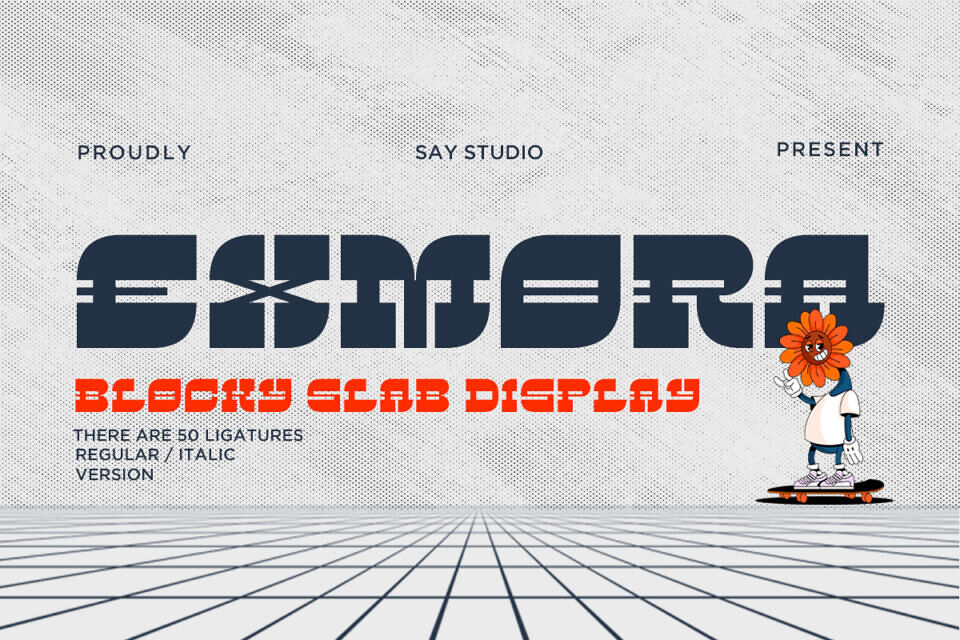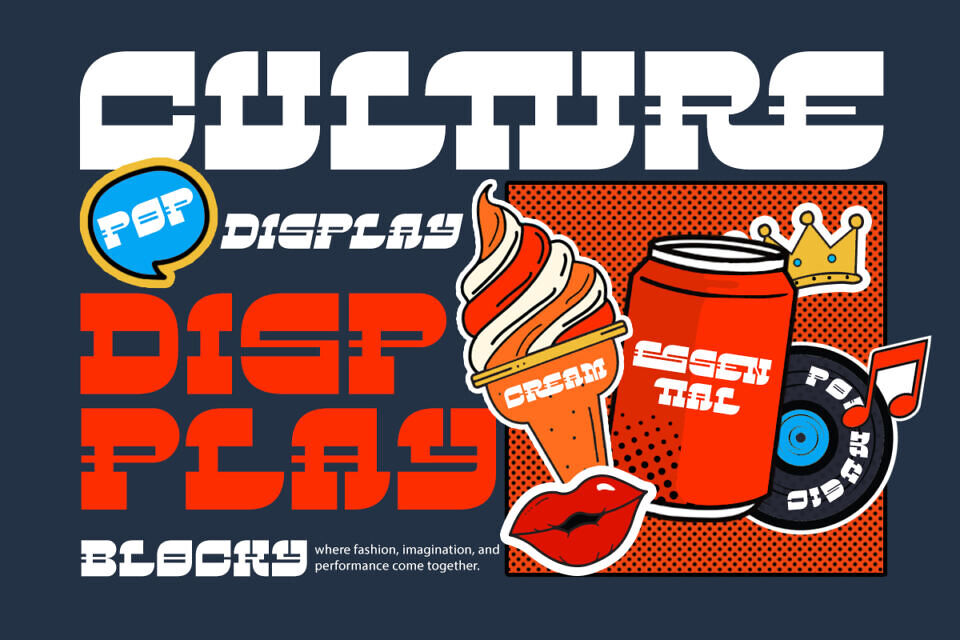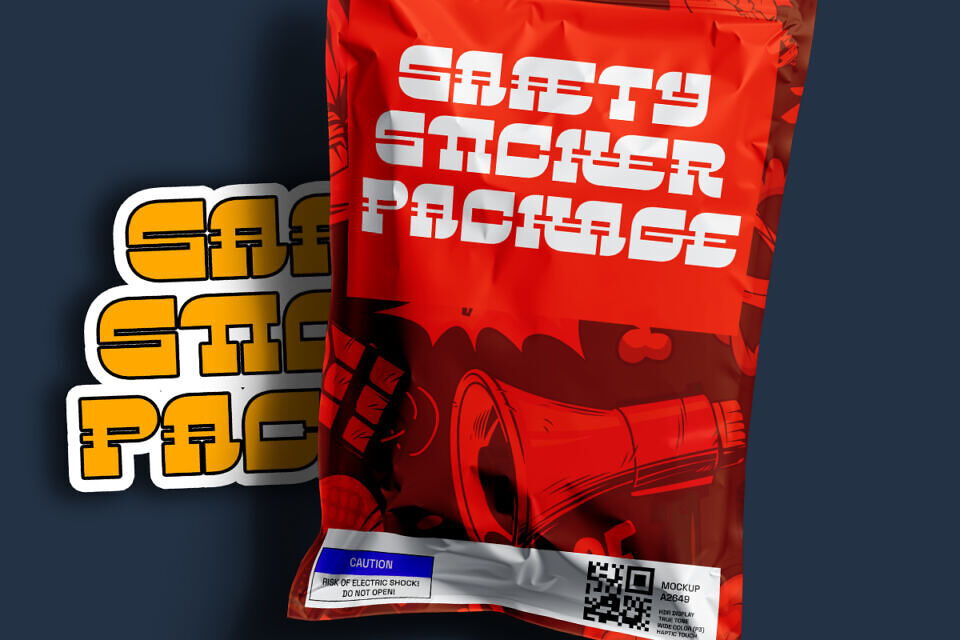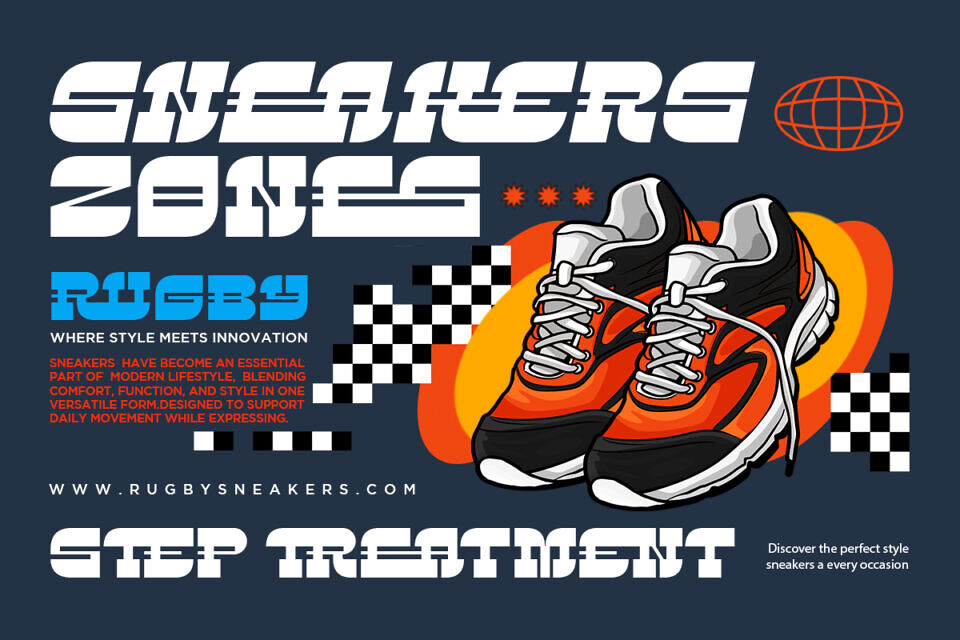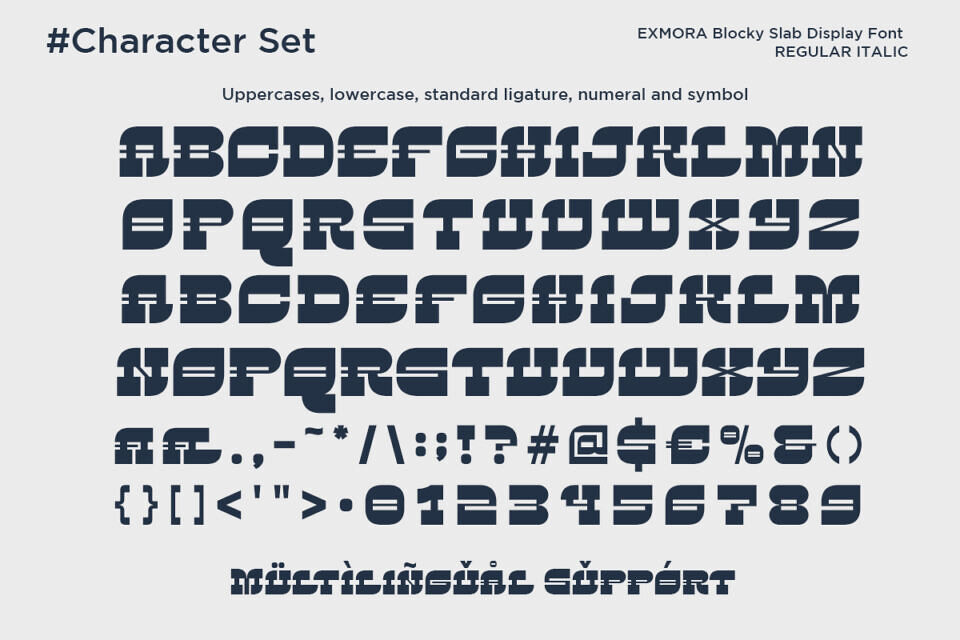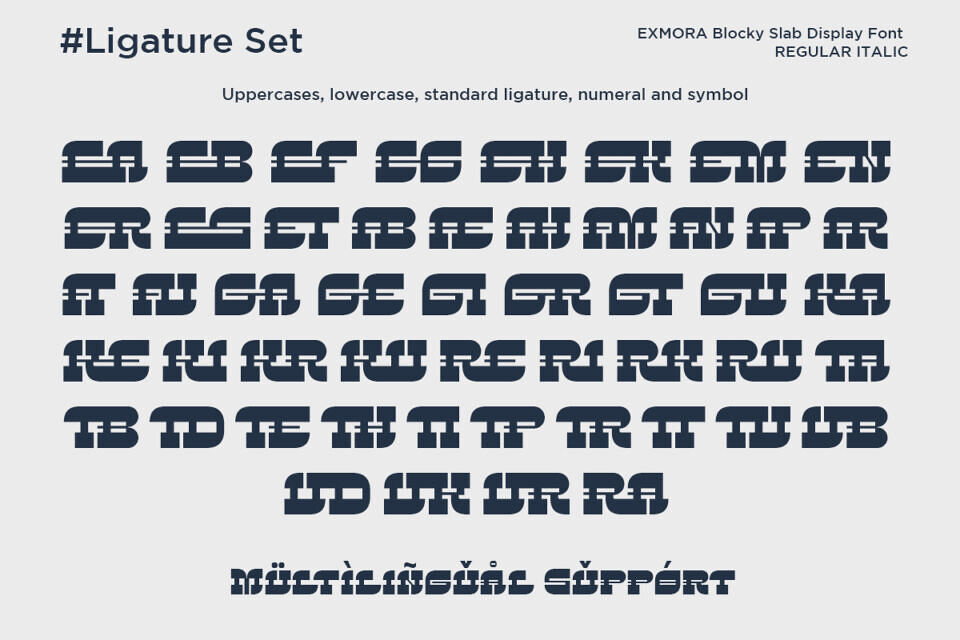
Exmora Font
Step into a retro-futuristic world with Exmora font, a blocky, ultra-wide slab display typeface that commands the entire horizontal plane. The Exmora typeface features unique horizontal stripes and architectural cutouts that evoke 80s tech and vintage gaming aesthetics. With over 50 ligatures, this Exmora font allows for deep customization, making it a dream for logo designers and brand strategists.
It is the perfect Exmora typeface for streetwear labels, tech-focused editorial spreads, and bold advertising campaigns. Pair it with vibrant neon colors or halftone textures to lean into its retro-cool personality and create a look that is both nostalgic and ahead of its time.